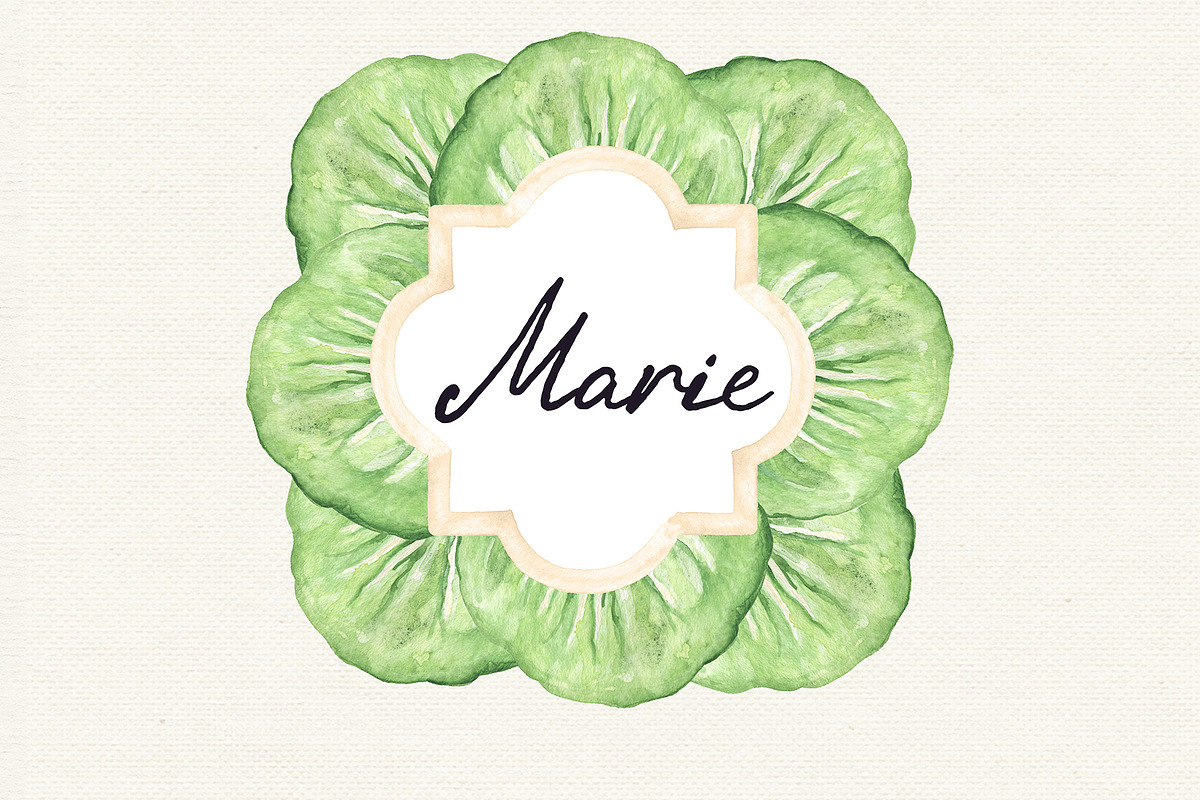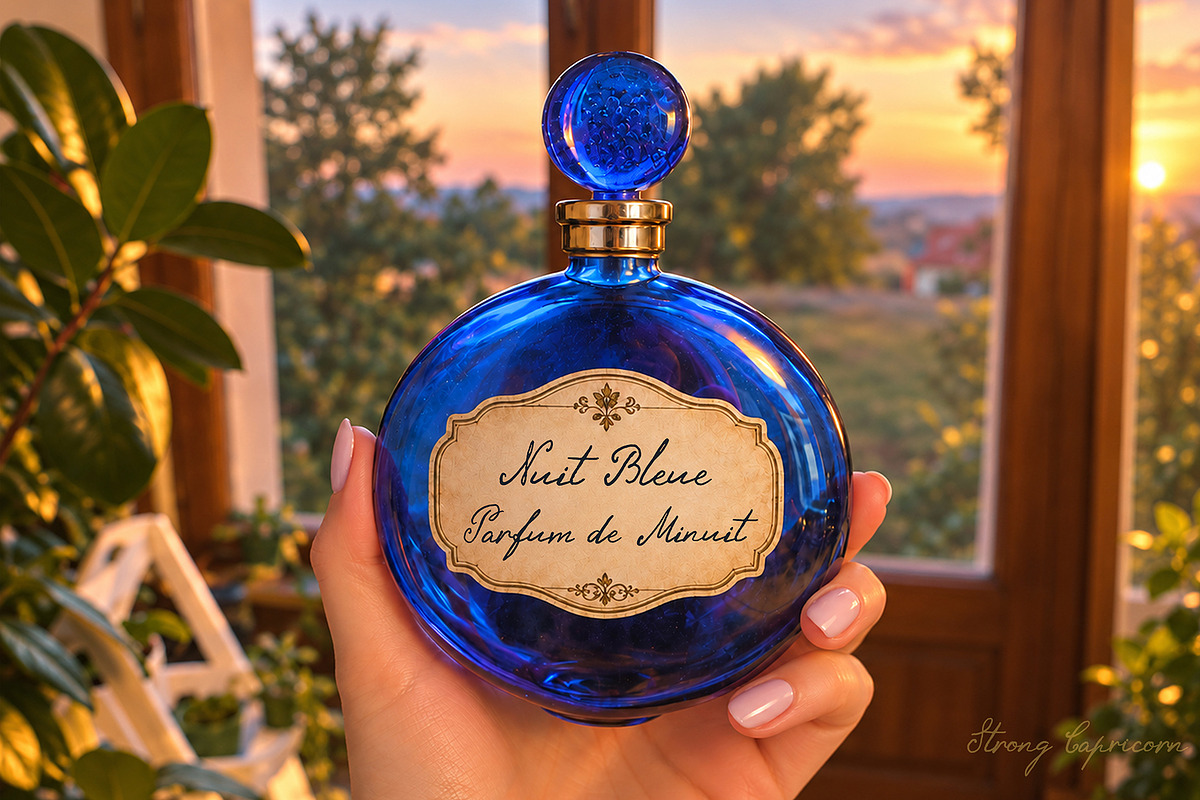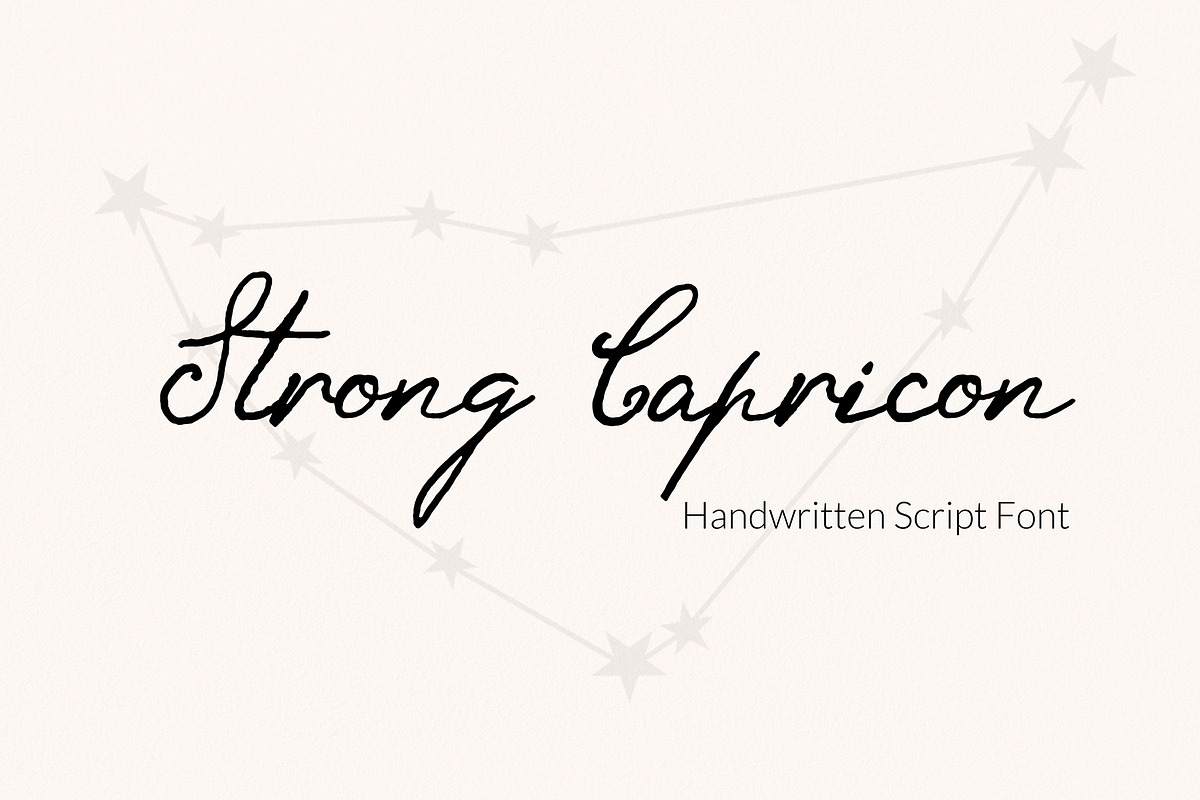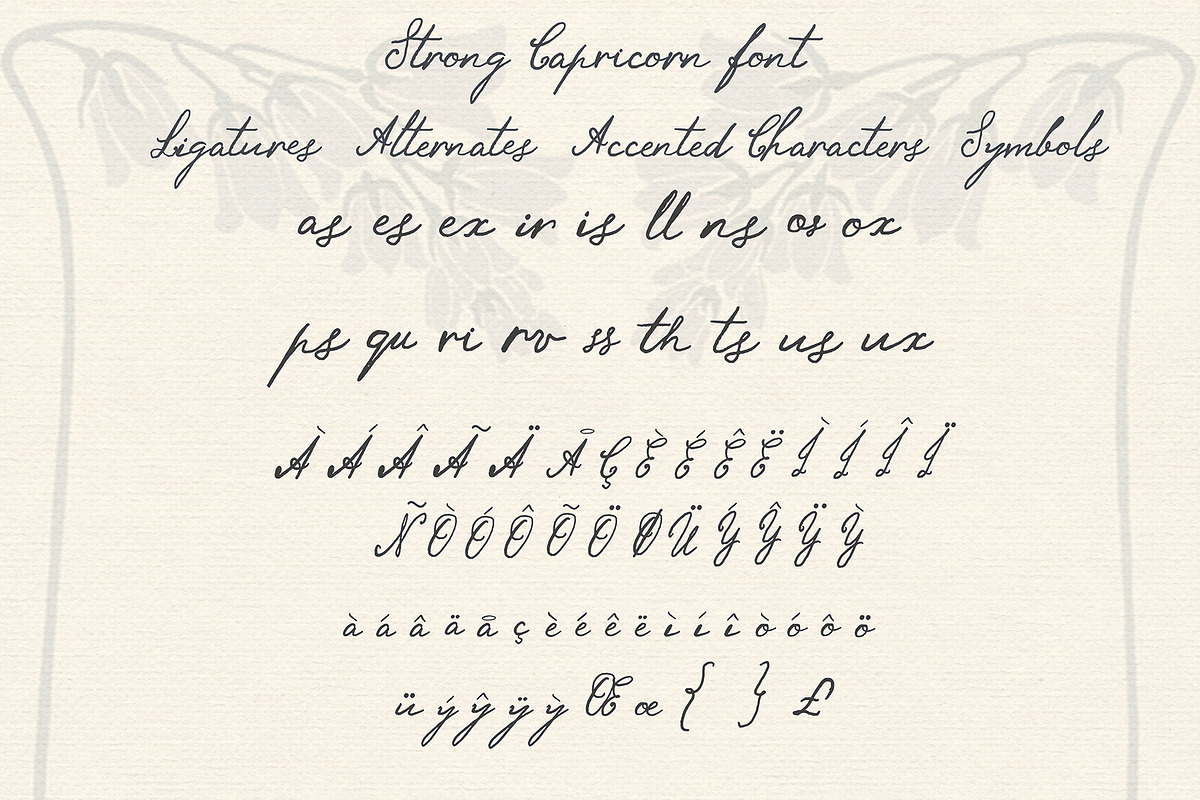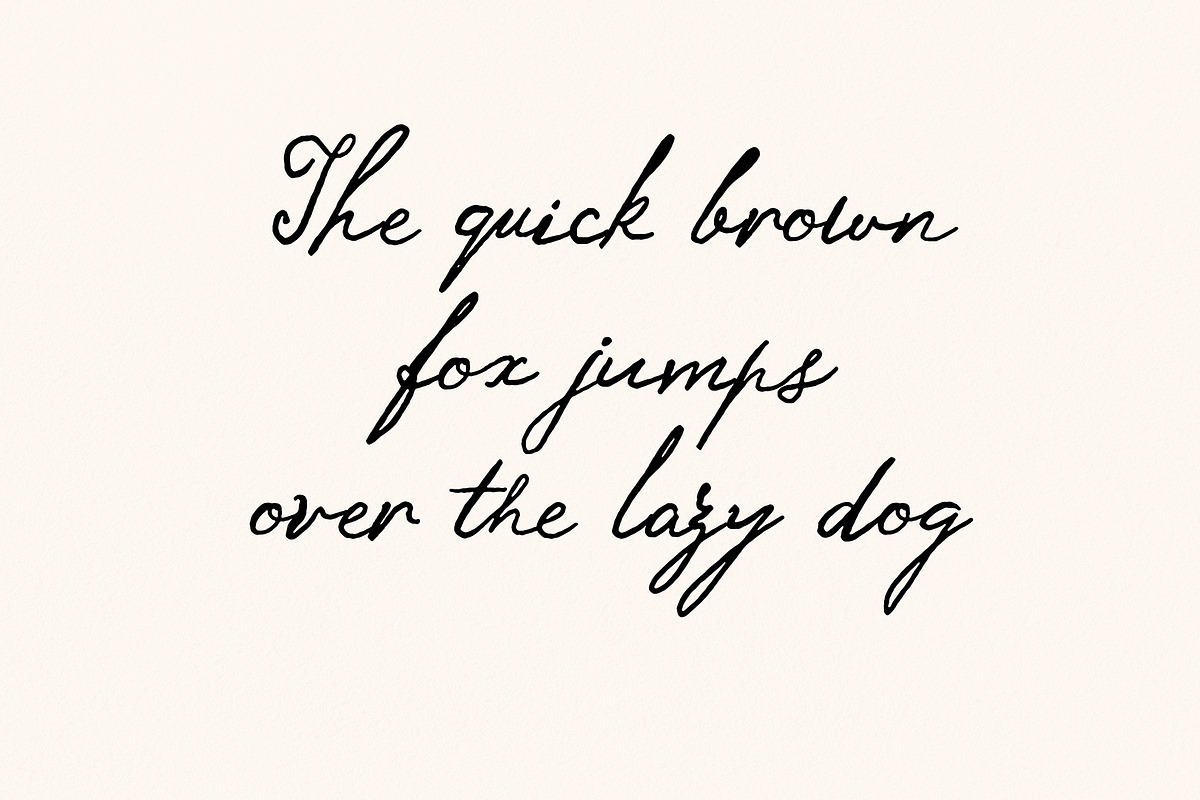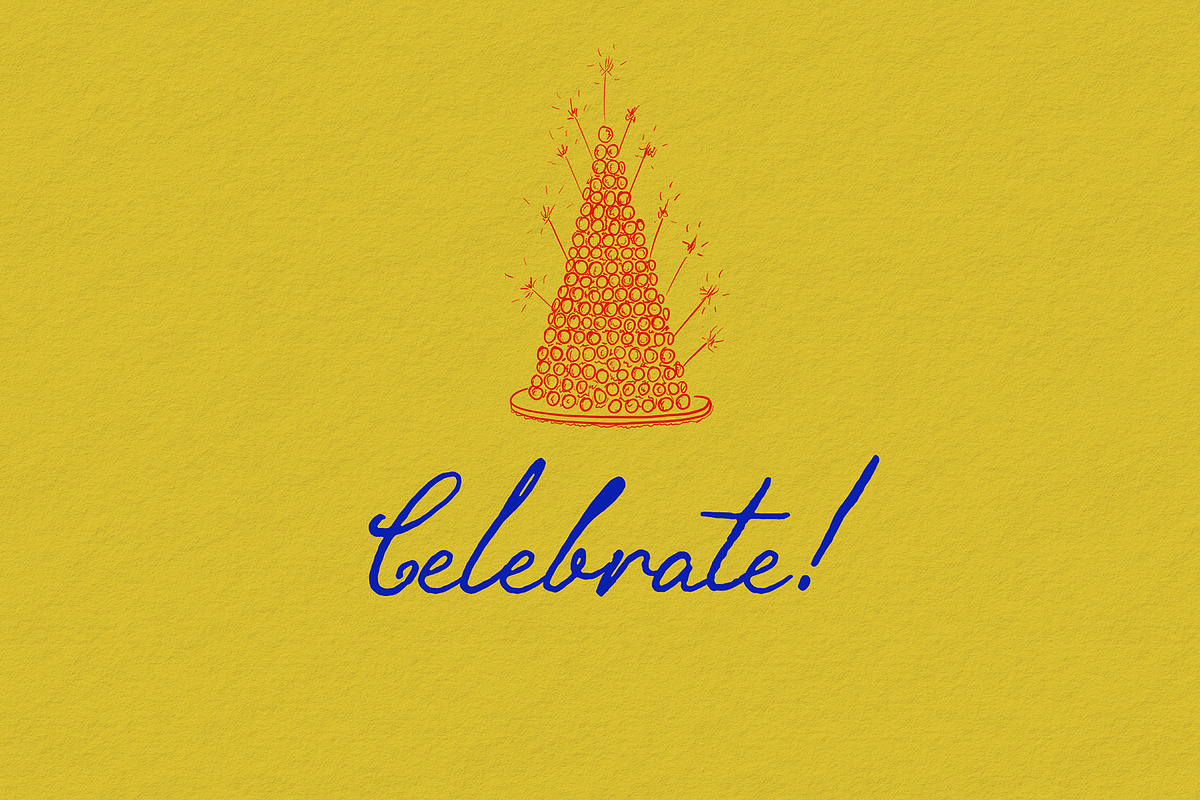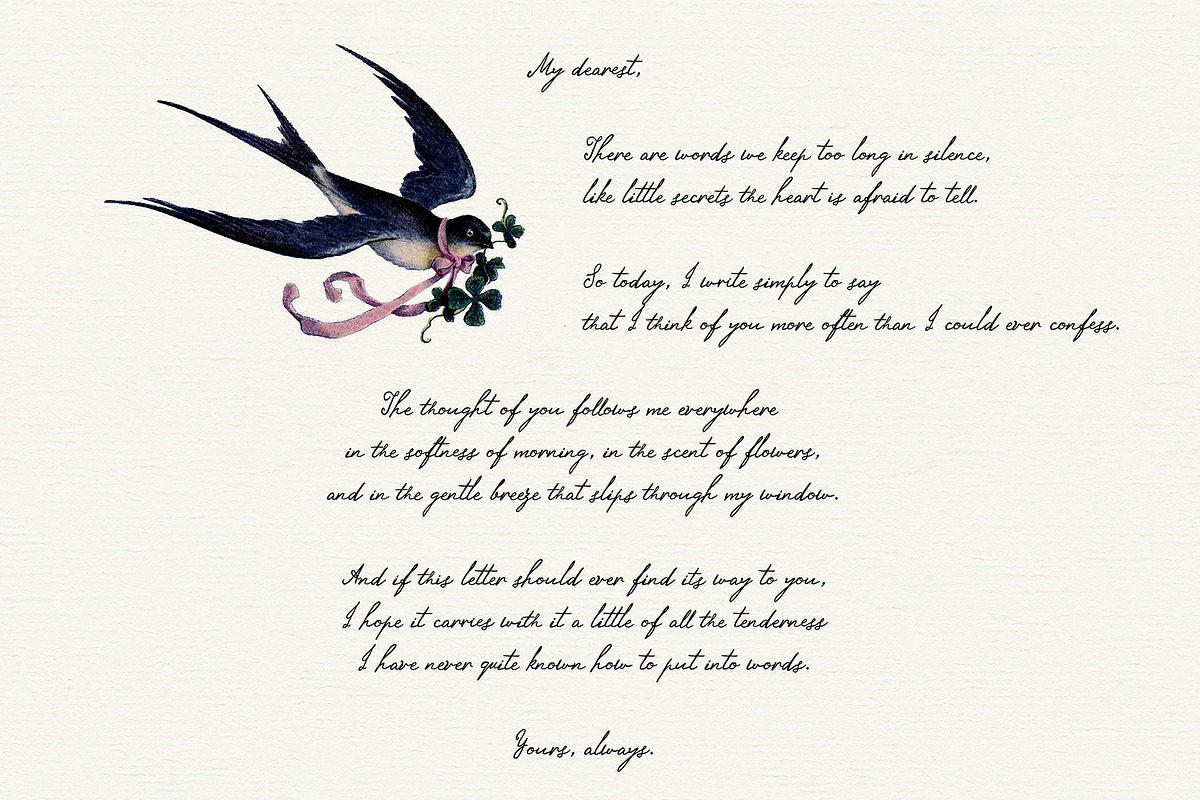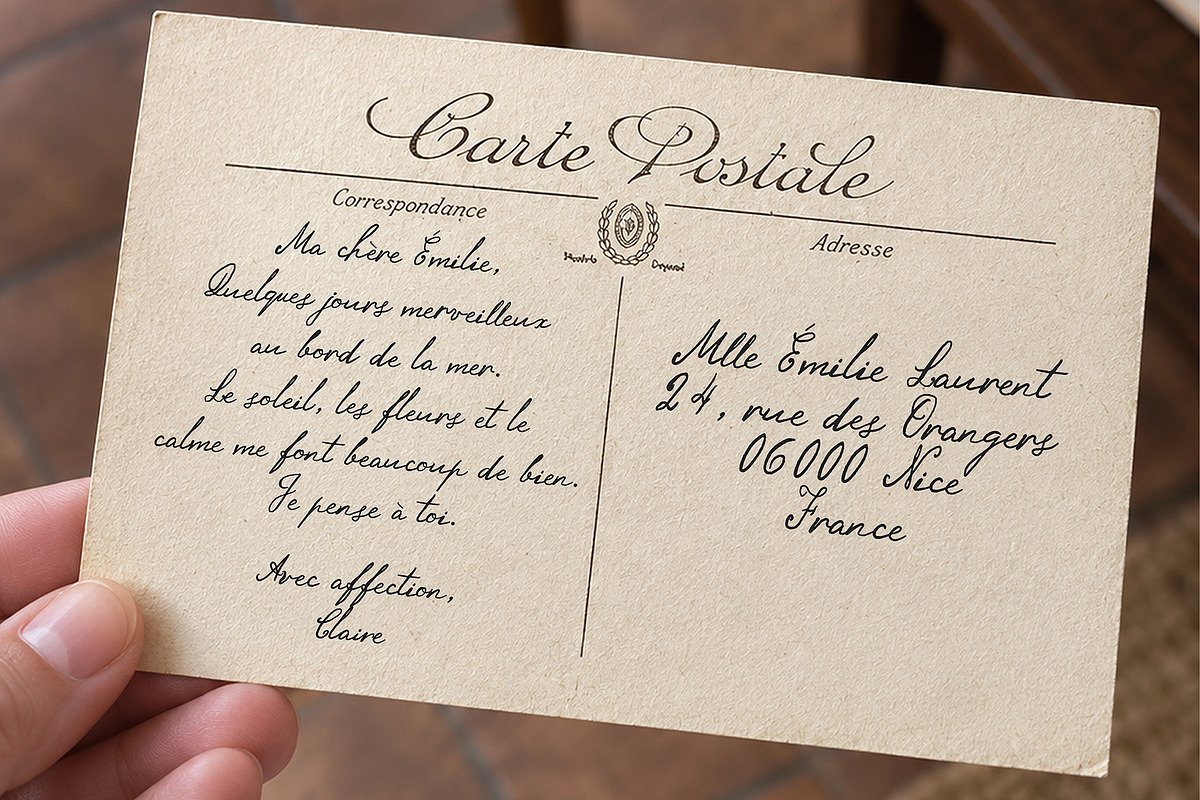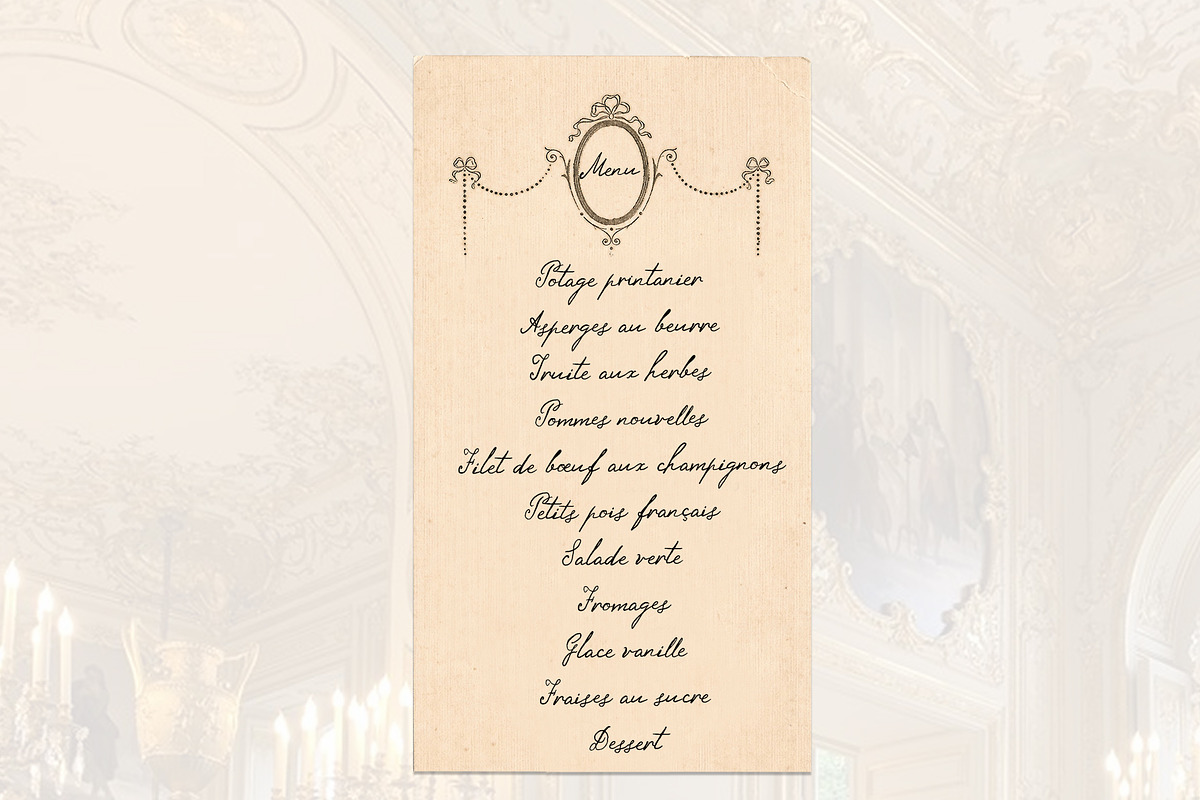
Strong Capricorn Vintage Script Font
Strong Capricorn is a vintage-inspired handwritten script font with an elegant, expressive and slightly nostalgic character.
Its natural letterforms and flowing strokes make it perfect for branding, logos, wedding stationery, invitations, packaging, menus, greeting cards, editorial layouts, social media graphics and romantic designs.
Strong Capricorn combines the charm of real handwriting with a refined vintage feel. It works beautifully for feminine, French-inspired, nostalgic and artistic projects, especially when paired with textured paper, classic serif fonts or minimal layouts.